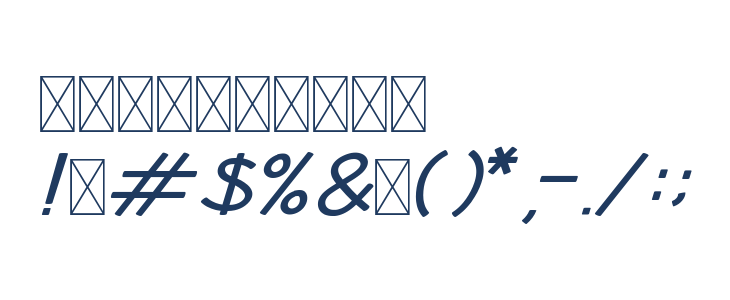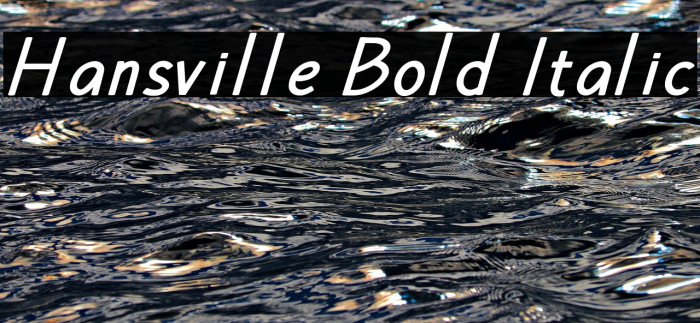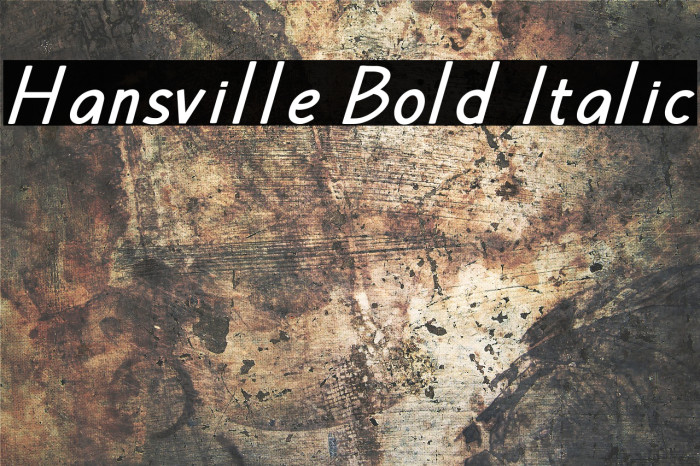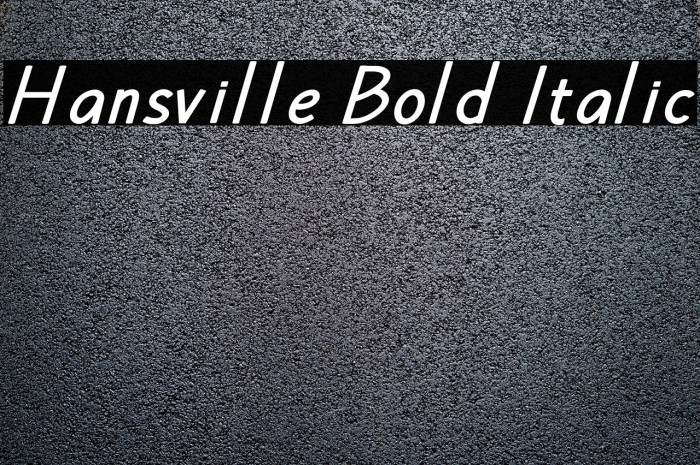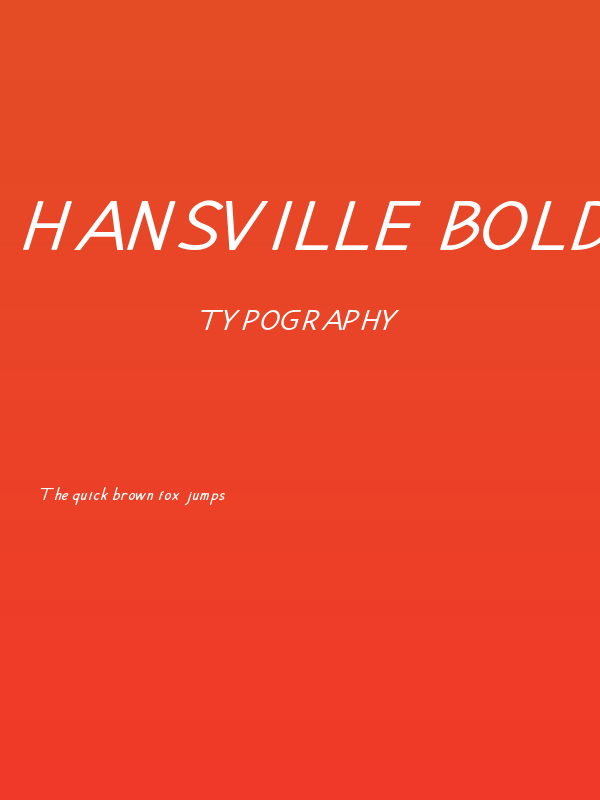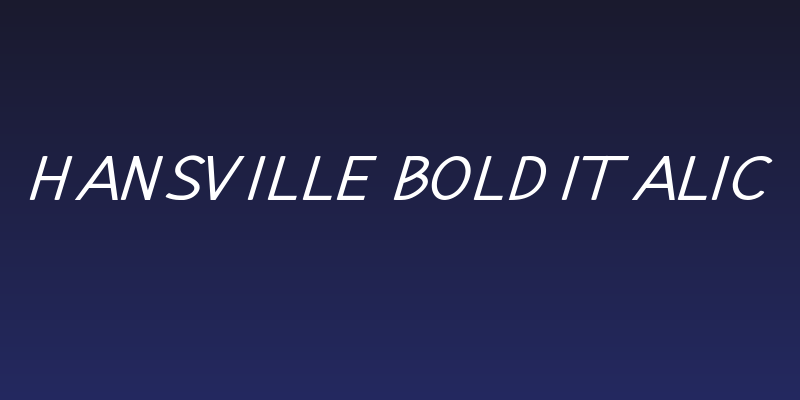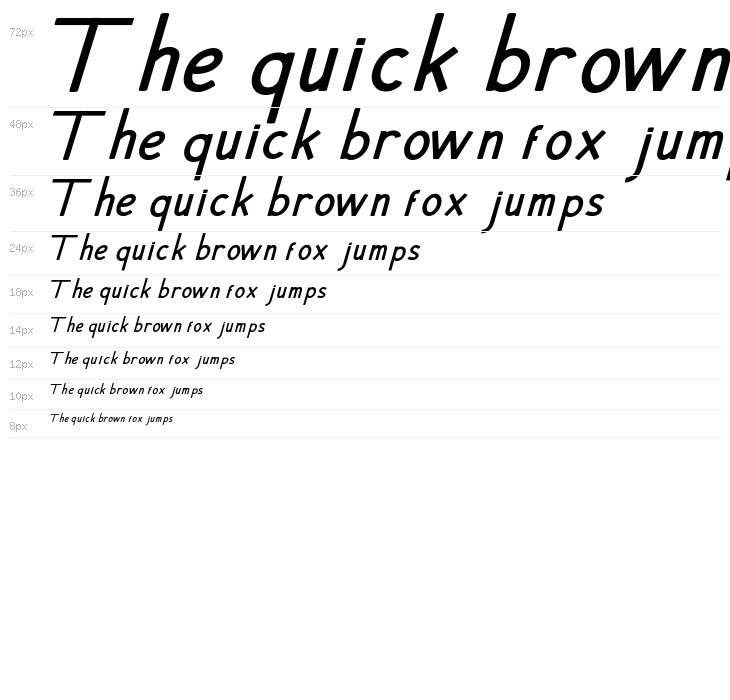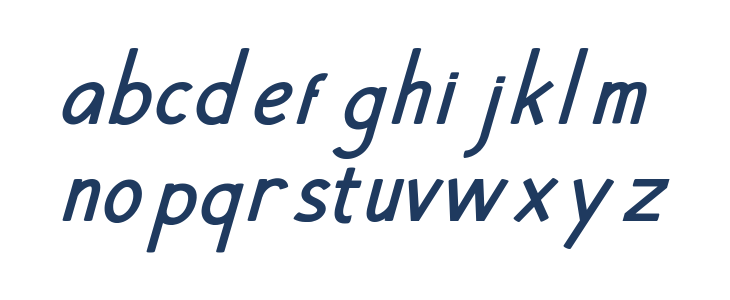
Hansville Bold Italic Font
Hansville Bold Italic Description
This typeface features a bold and italic style, characterized by its slanted and dynamic appearance. The letters are slightly condensed, giving a sleek and modern look. The strokes are consistent in weight, providing a uniform and bold presence. The uppercase and lowercase letters maintain a harmonious balance, with smooth curves and sharp angles that enhance readability. The numerals and special characters are designed to match the overall aesthetic, ensuring versatility across different uses.
Proposed ProjectsIdeal for branding, advertising, and editorial design projects that require a bold and modern touch.